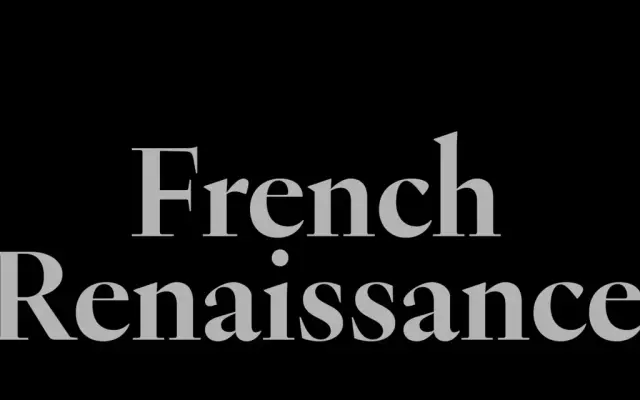
Galien
A French Renaissance-inspired serif with Venetian italic influences, offered in four text weights plus a high-contrast Poster cut and variable font files.
Rooted in the transition from Blackletter to Humanist scripts, Galien revives the spirit of sixteenth-century French and Venetian type rather than any single historical source. Four upright weights from Light to Bold cover body text, while the Poster cut shifts to higher contrast for display work. The family ships with variable fonts, extensive Latin and Cyrillic coverage, oldstyle figures, fractions, ligatures and a generous set of currency symbols.
Galien draws on French Renaissance humanist models, with italics rooted in sixteenth-century Venetian types, placing it firmly in the old style serif tradition with a modern digital interpretation.